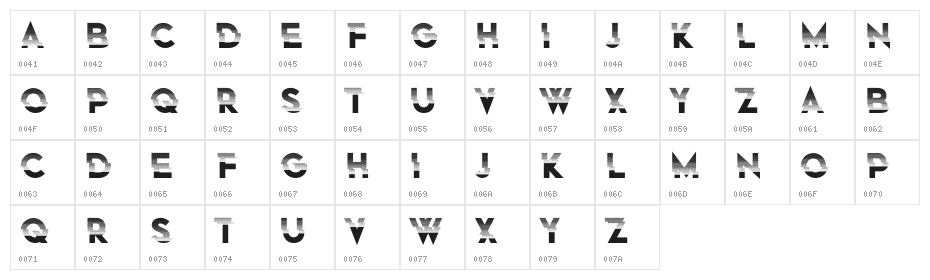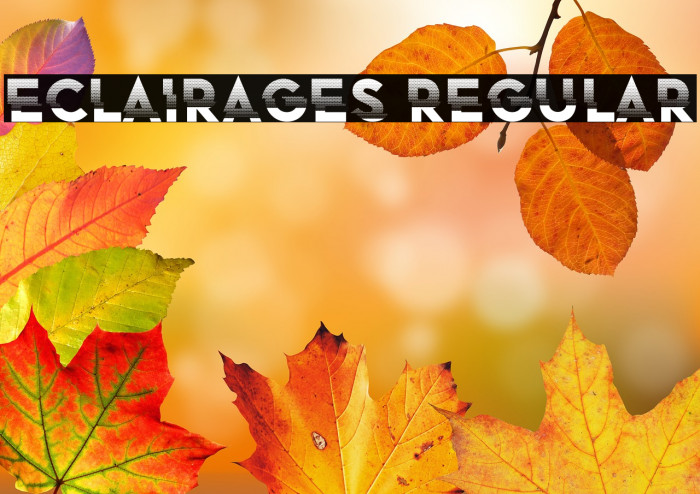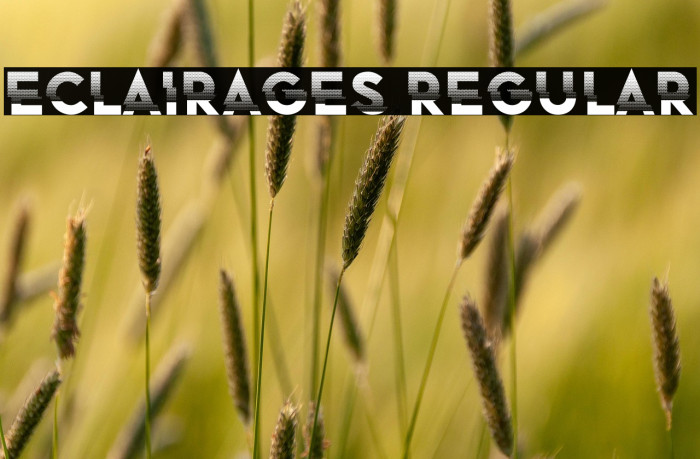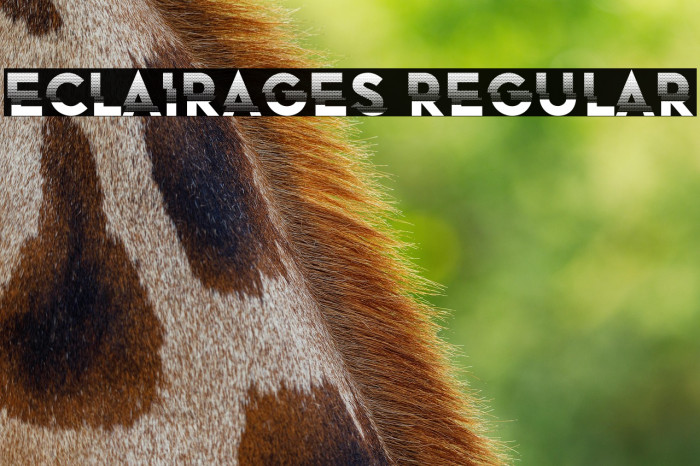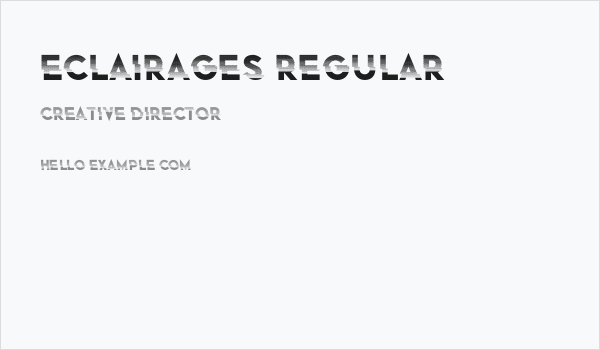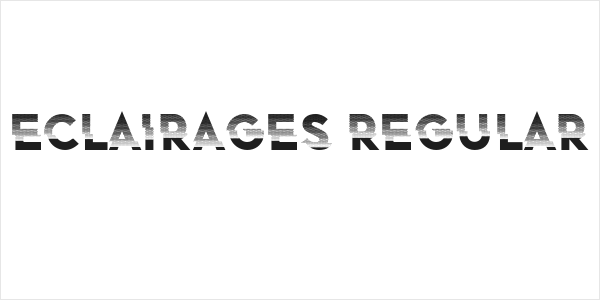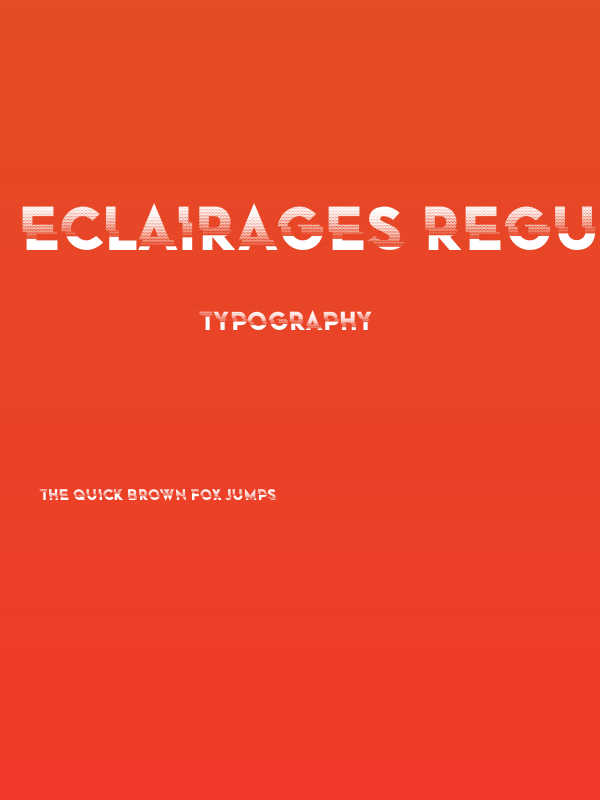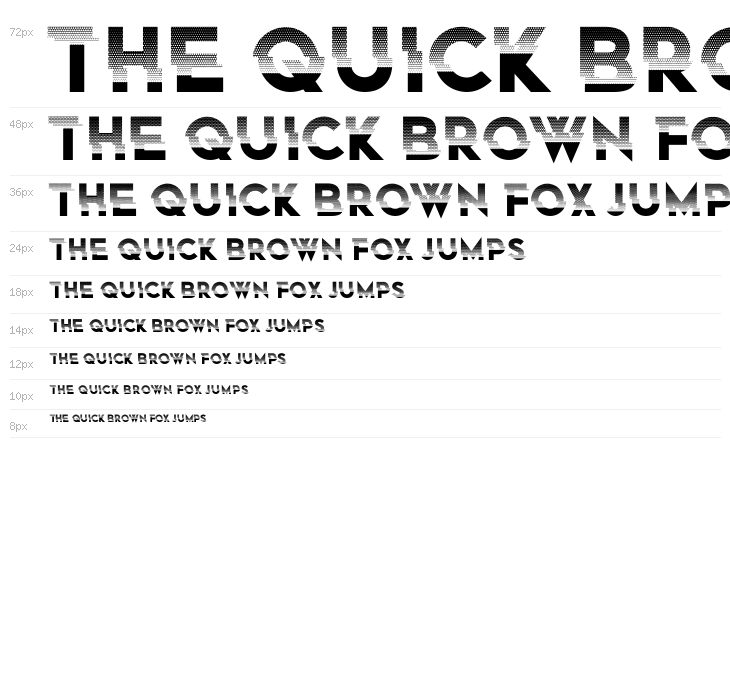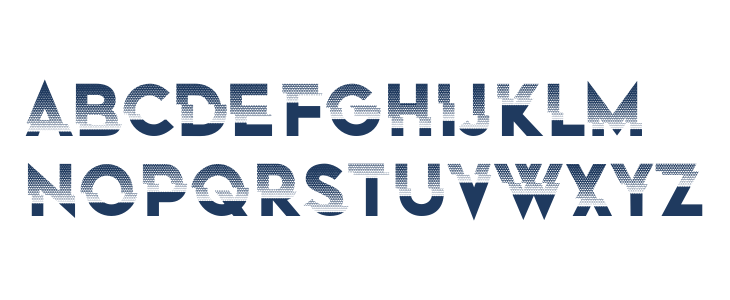
Eclairages Regular Font
Eclairages Regular Description
This font features a bold, geometric design with a unique halftone effect that creates a sense of movement and depth. The uppercase letters are characterized by sharp angles and clean lines, while the halftone pattern adds a dynamic, modern twist. The overall appearance is striking and eye-catching, making it suitable for projects that require a strong visual impact. The font's style is both contemporary and artistic, offering versatility for various creative applications.
| Proposed Projects | Ideal for posters, album covers, branding, and modern art projects. |